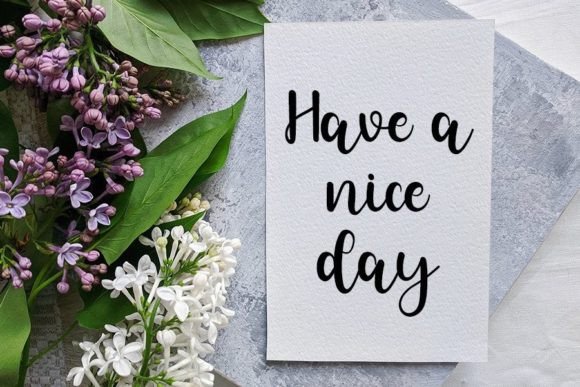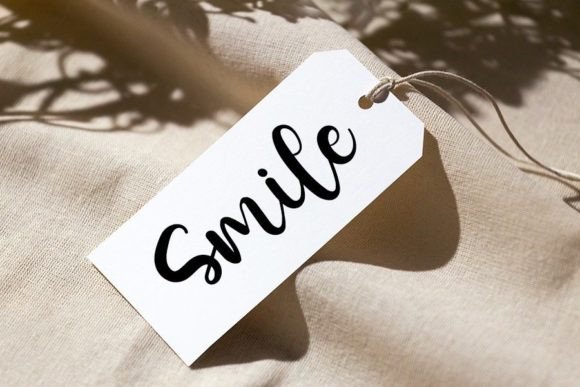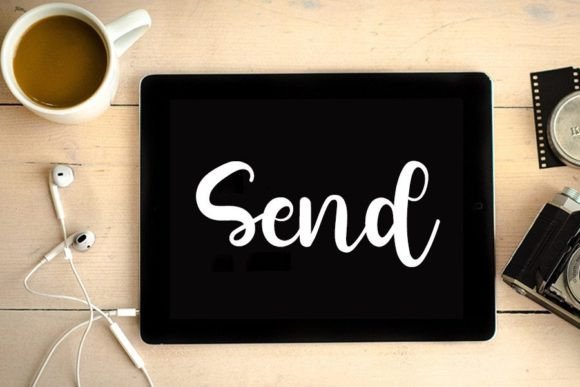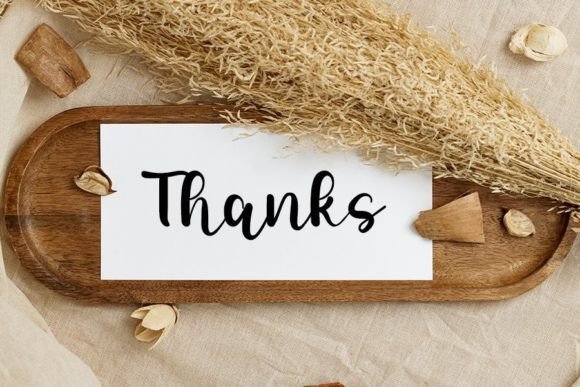
Better Font: Elevate Your Designs with Elegance and Timeless Style
Are you on the hunt for a font that adds a touch of sophistication and elegance to your designs? Look no further than Better Font, a stunning handwritten font that is sure to capture your heart. With its unique and timeless style, Better Font is the perfect choice for designers and crafters looking to create spectacular designs that stand out from the crowd.
What Makes Better Font So Special?
Better Font is a neat and beautiful handwritten font that boasts an elegant touch, making it ideal for a wide range of projects. Whether you’re working on a logo, branding materials, or marketing collateral, this font is sure to impress. Its incredibly distinct style is both classic and modern, allowing you to create designs that are both timeless and trendy.
Key Features of Better Font
- Handwritten with love: Better Font is a carefully crafted handwritten font that exudes warmth and personality.
- Elegant touch: The font’s elegant touch makes it perfect for designs that require a level of sophistication.
- Distinct and timeless style: Better Font’s unique style is both classic and modern, ensuring your designs stand the test of time.
- Highly versatile: This font can be used for a wide range of projects, from logos and branding materials to marketing collateral and more.
Why Choose Better Font?
- Unique and distinctive: Better Font’s unique style ensures your designs will stand out from the crowd.
- Easy to read: Despite its elegant and handwritten nature, Better Font is incredibly easy to read, making it perfect for body text and headlines.
- Customizable: With Better Font, you can create a wide range of designs by experimenting with different colors, sizes, and styles.
How to Use Better Font in Your Designs
- Pair it with bold colors: Better Font looks stunning when paired with bold, bright colors that make your designs pop.
- Experiment with sizes: Try using Better Font in different sizes to create visual interest and hierarchy in your designs.
- Add a personal touch: Better Font’s handwritten nature makes it perfect for adding a personal touch to your designs.
Who Can Benefit from Better Font?
Better Font is perfect for a wide range of designers and crafters, including:
- Graphic designers: Looking for a unique and elegant font to add to their designs.
- Crafters: Creating handmade products, such as cards, invitations, and scrapbook pages.
- Marketers: Needing a font that will make their marketing collateral stand out.
| Font Name | Better Font |
| Author | Kongsi.Co |